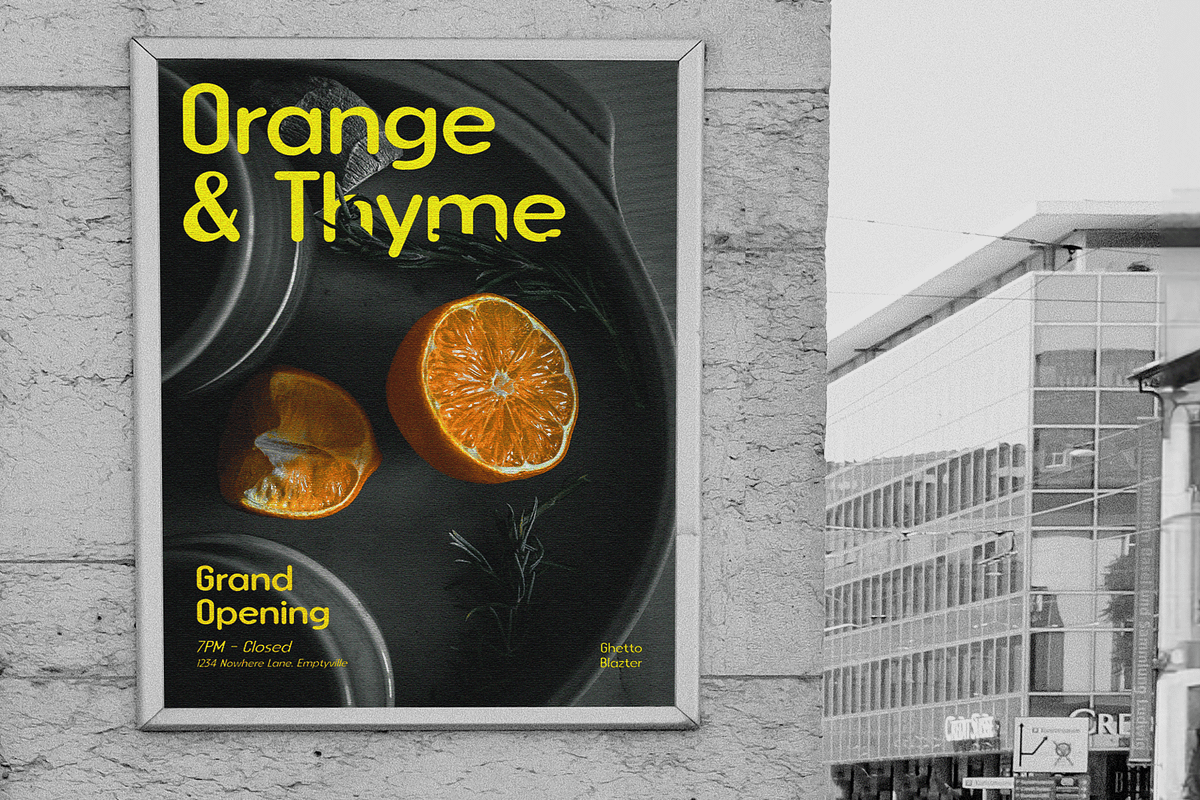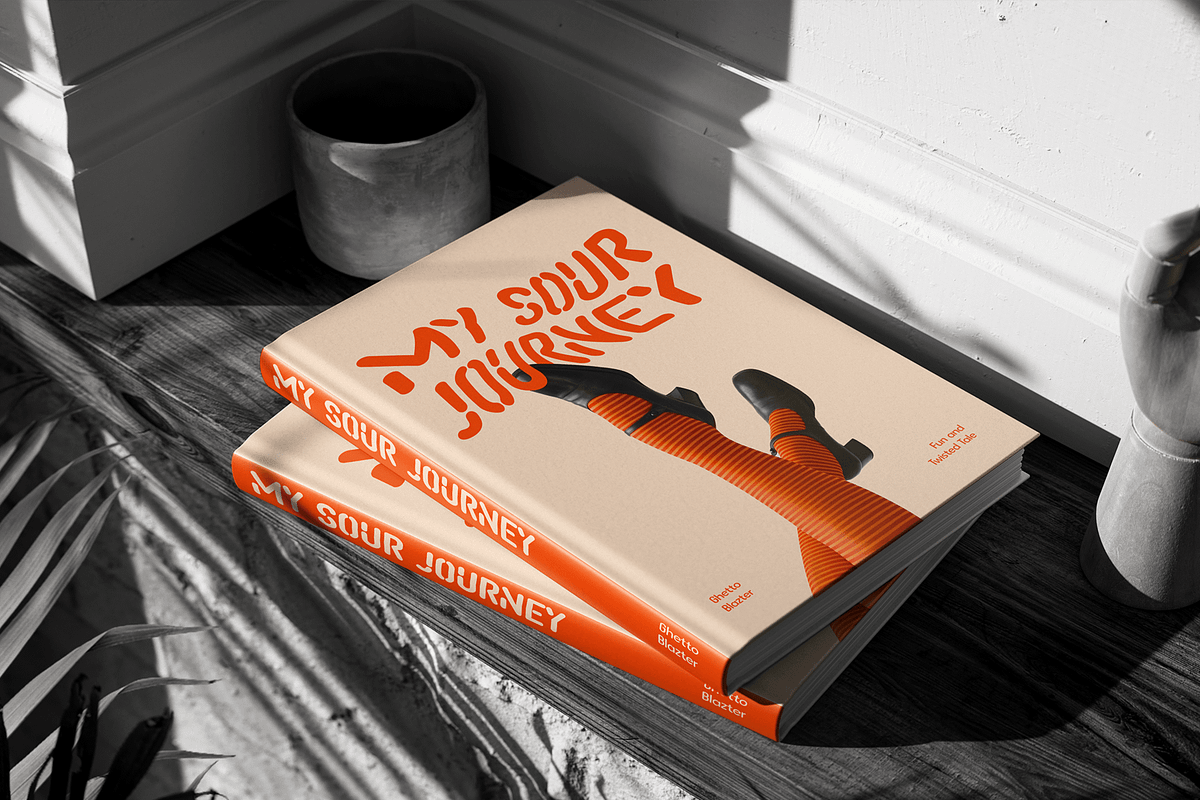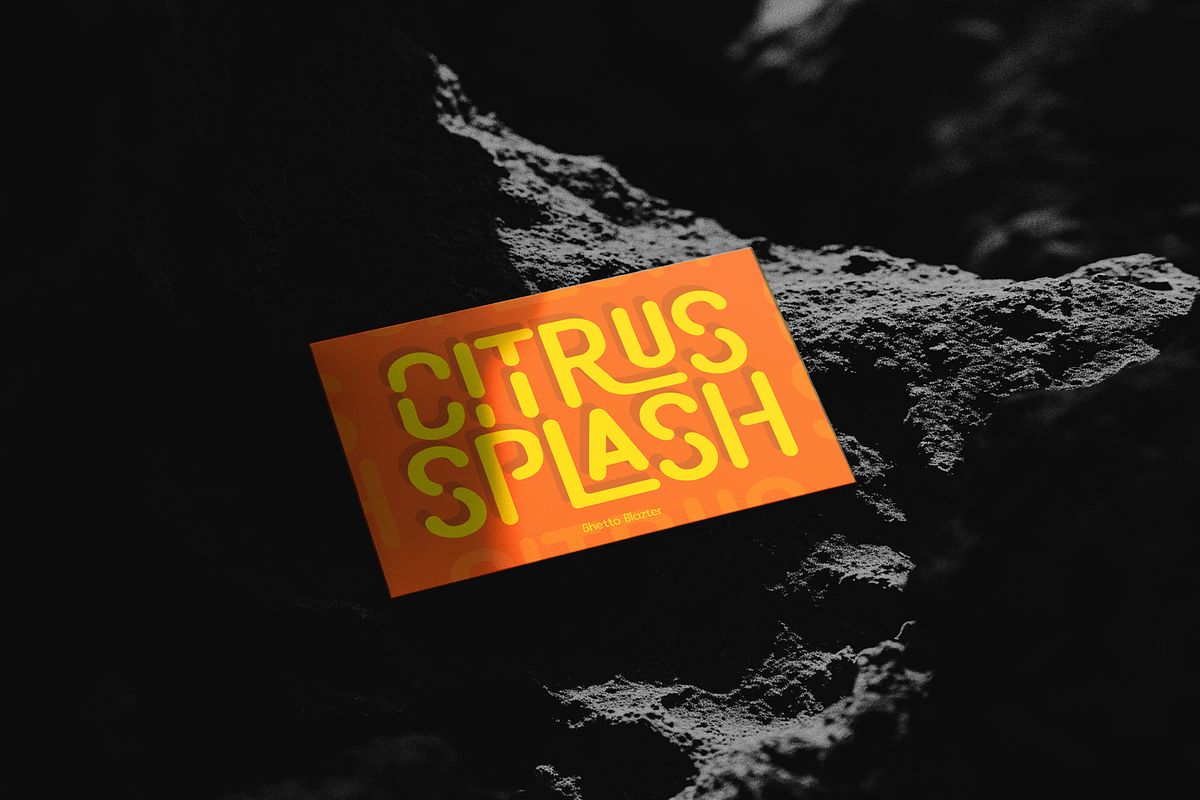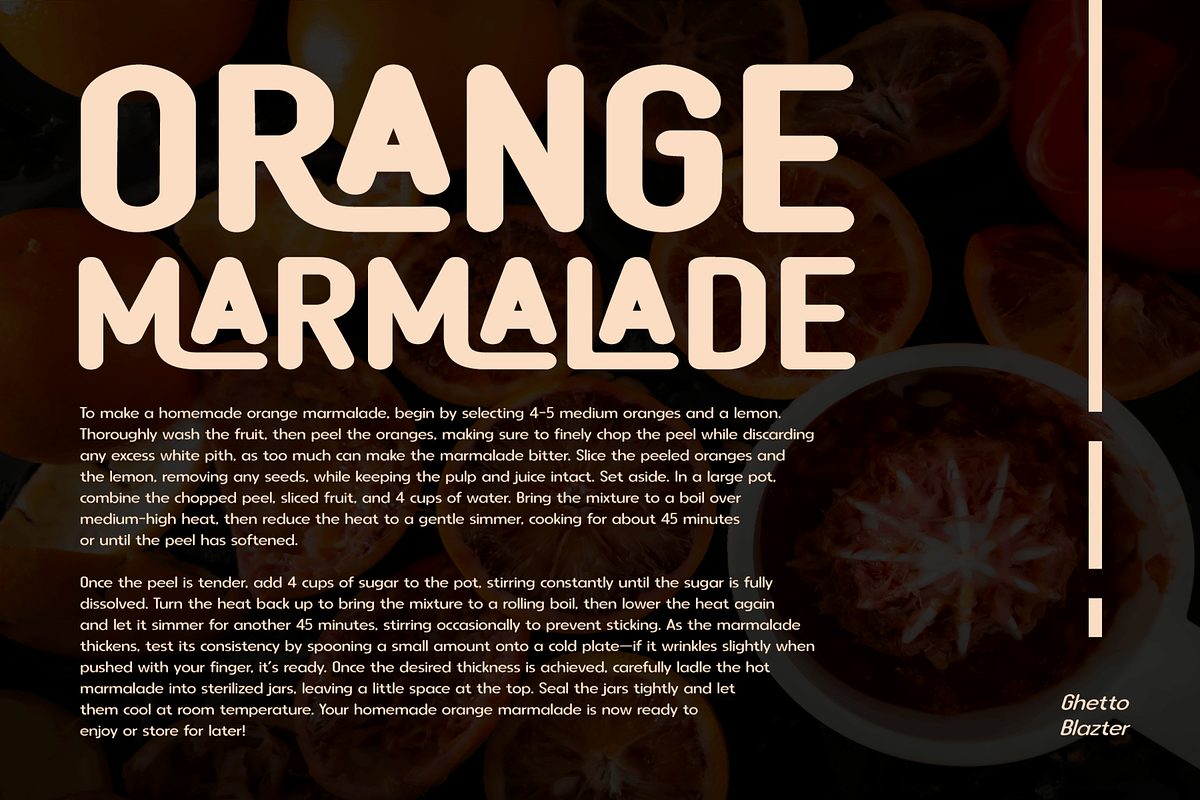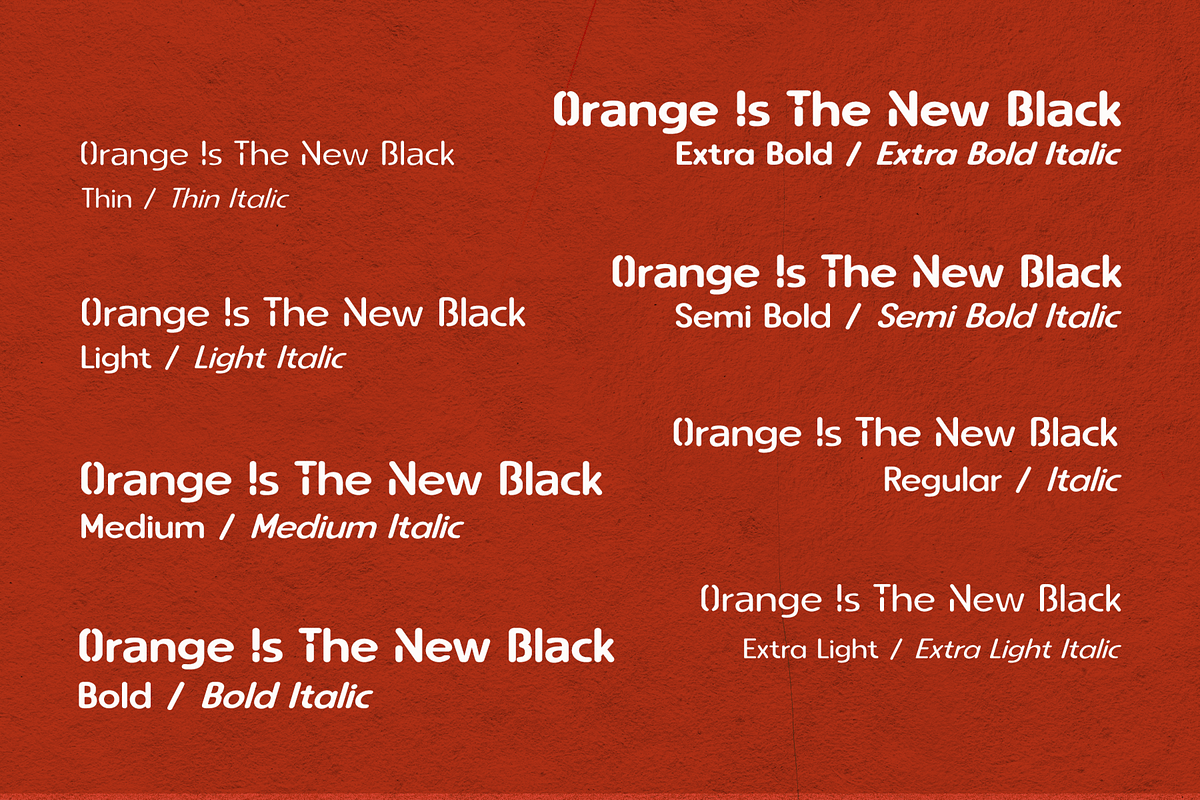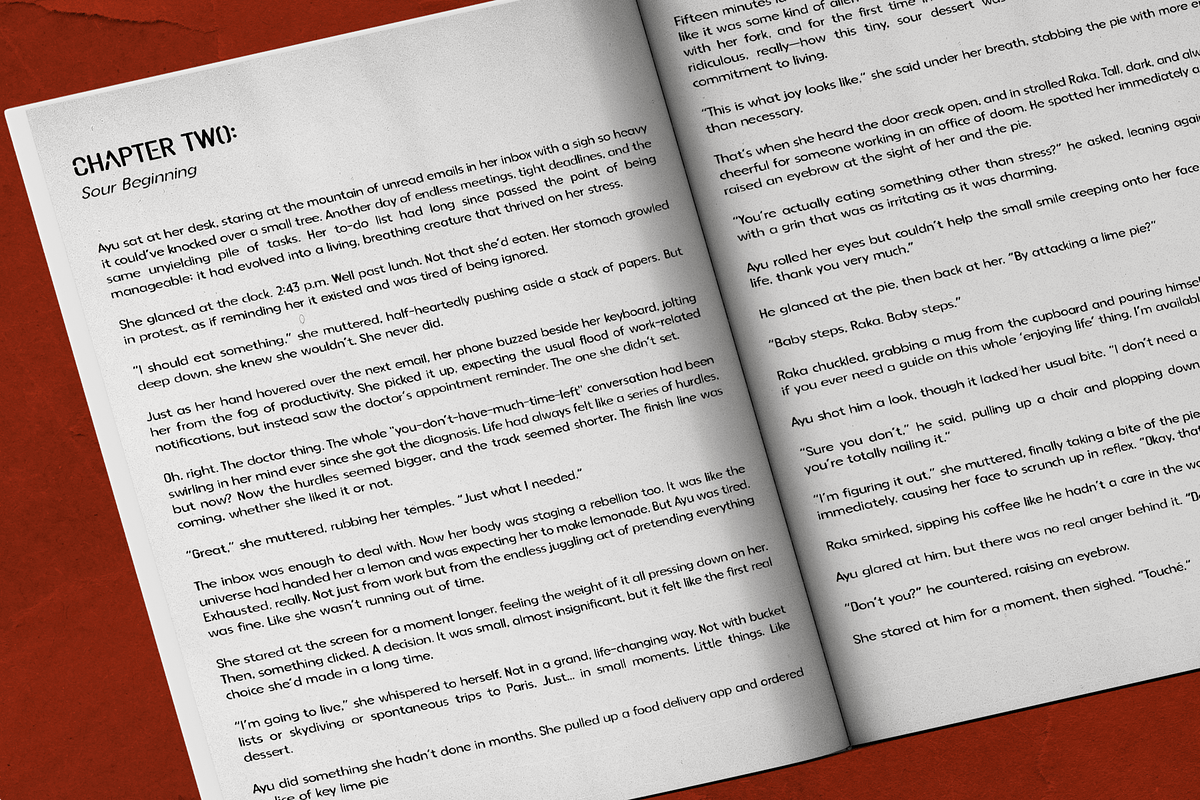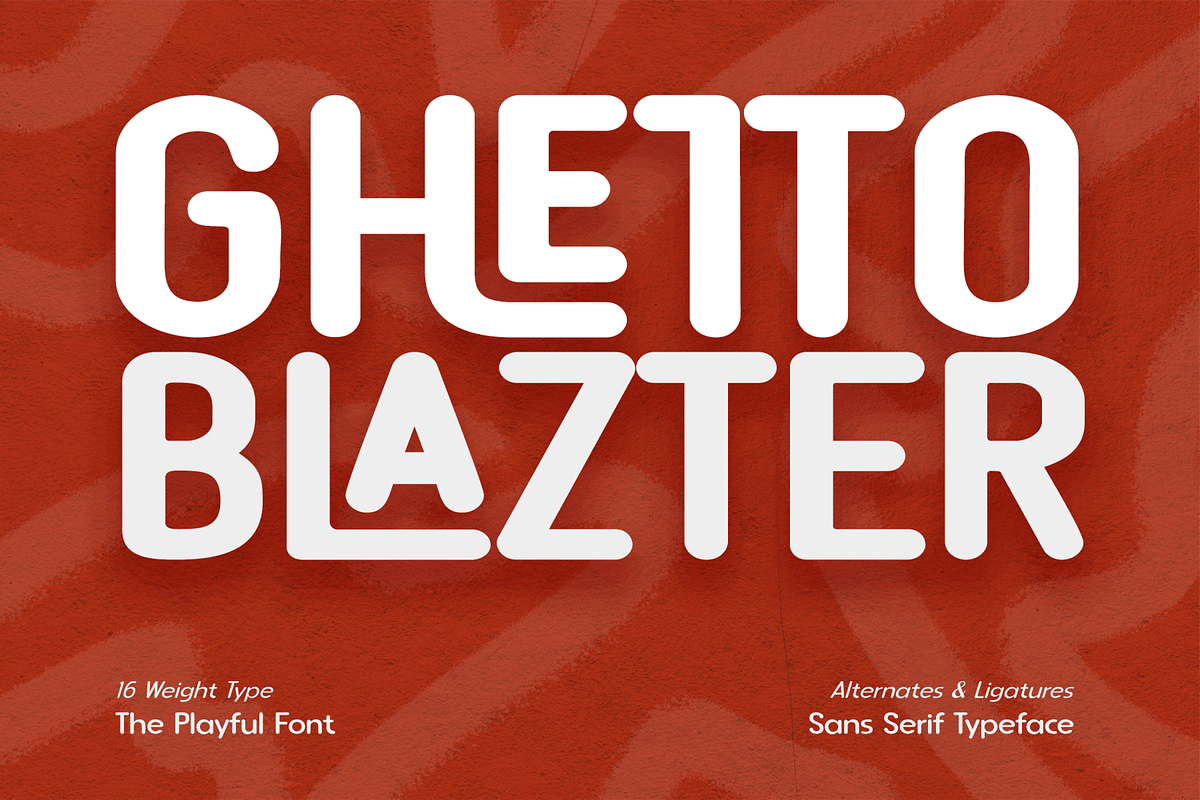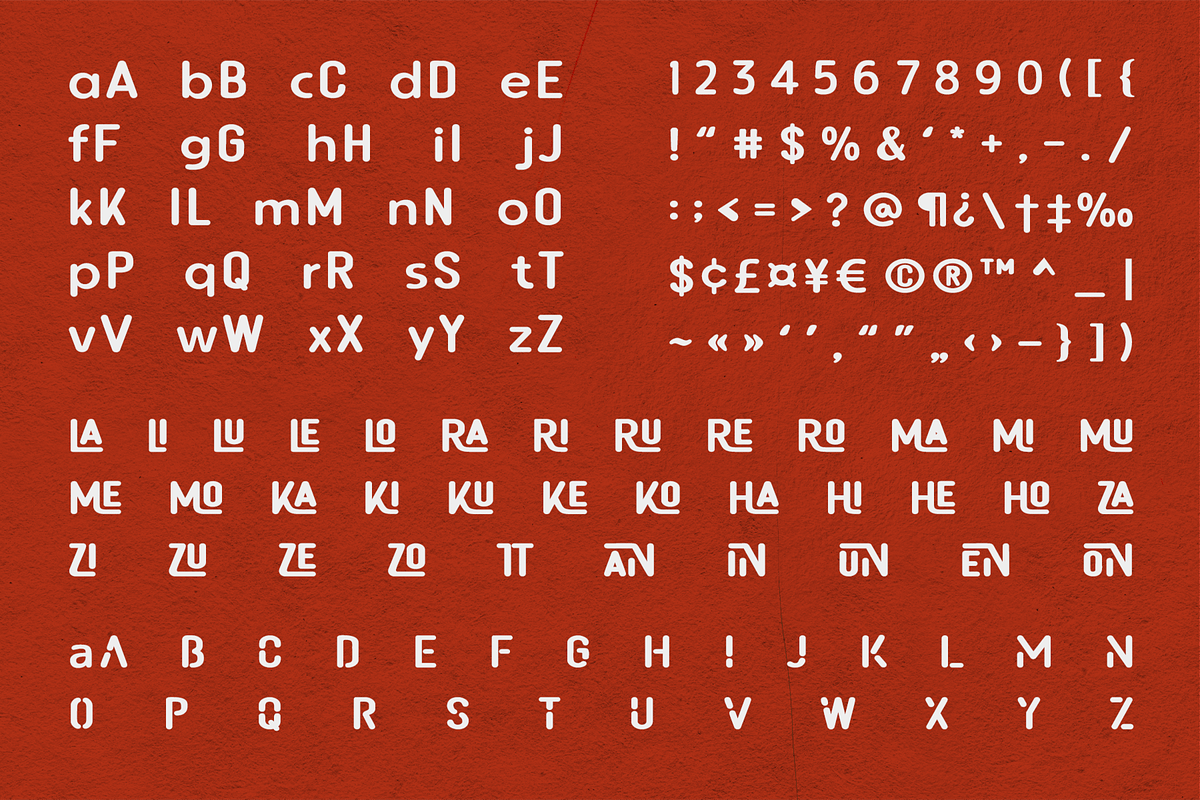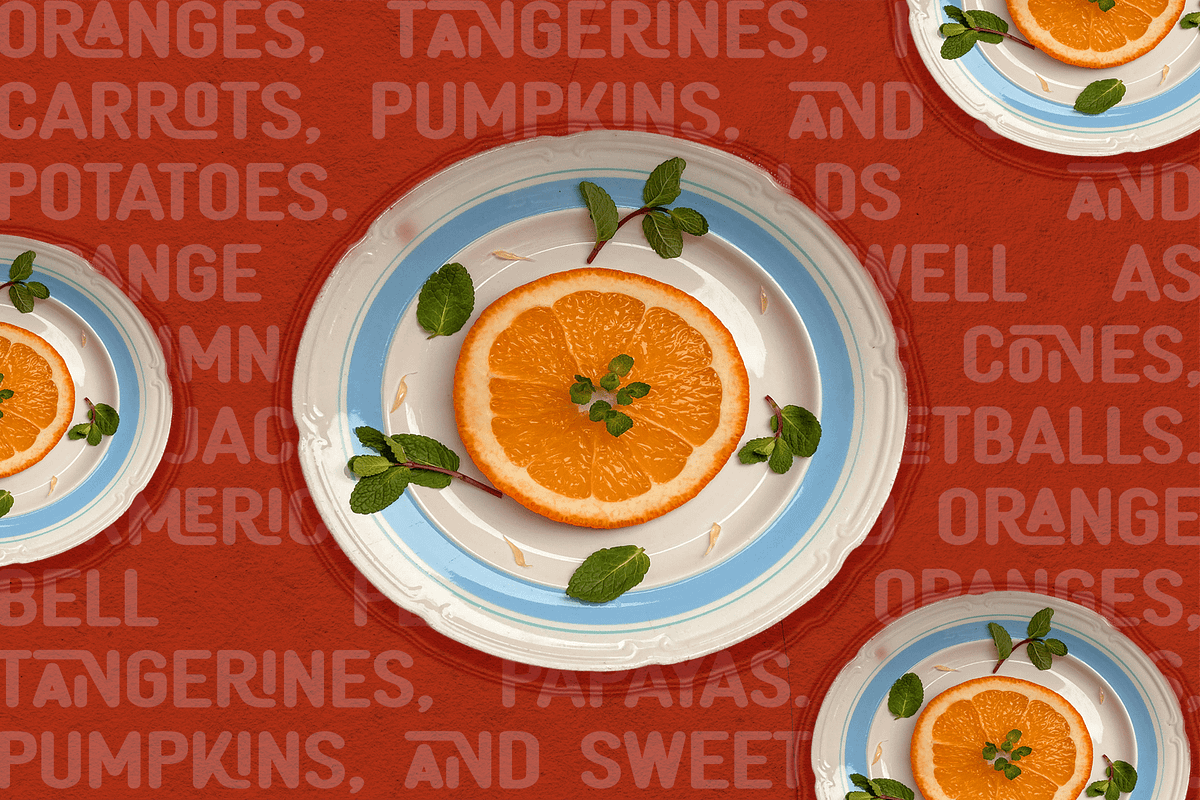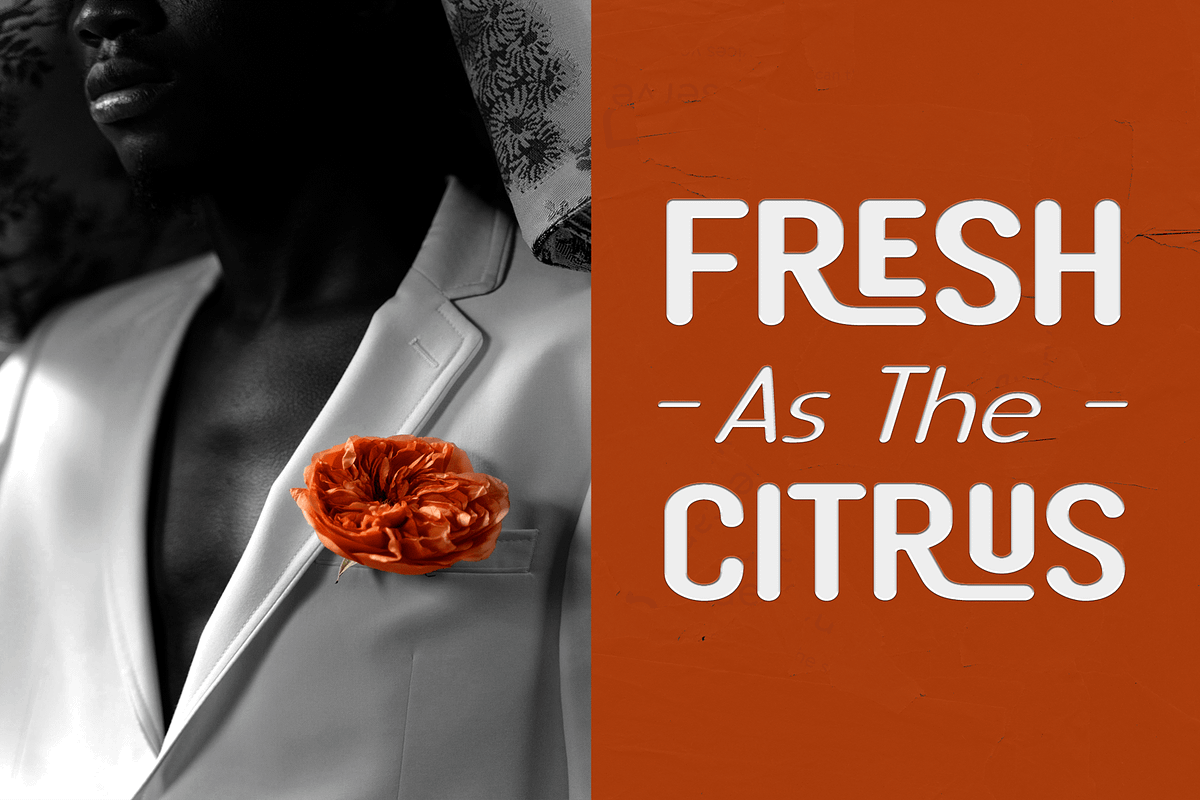
CF Ghetto Blazter - Rounded Sans
Ghetto Blazter is a versatile sans-serif font that blends modern aesthetics with a touch of urban flair. Its rounded corners and dynamic letterforms create a friendly and approachable atmosphere, perfect for a variety of design projects. Ghetto Blazter's unique feature lies in its ability to interlock words, creating visually interesting and dynamic compositions. With a vast array of alternates and ligatures, the possibilities for customization are endless. The font's rounded corners soften its appearance, making it more approachable and inviting. This, combined with its clean lines and contemporary design, ensures that Ghetto Blazter remains relevant in modern design trends.
- Standard Character A-Z, a-z, 0-9, Punctuation & symbols
- 16 Styles Font
- Various Alternates and Ligatures
- Multilingual Support Accent and Diacritics